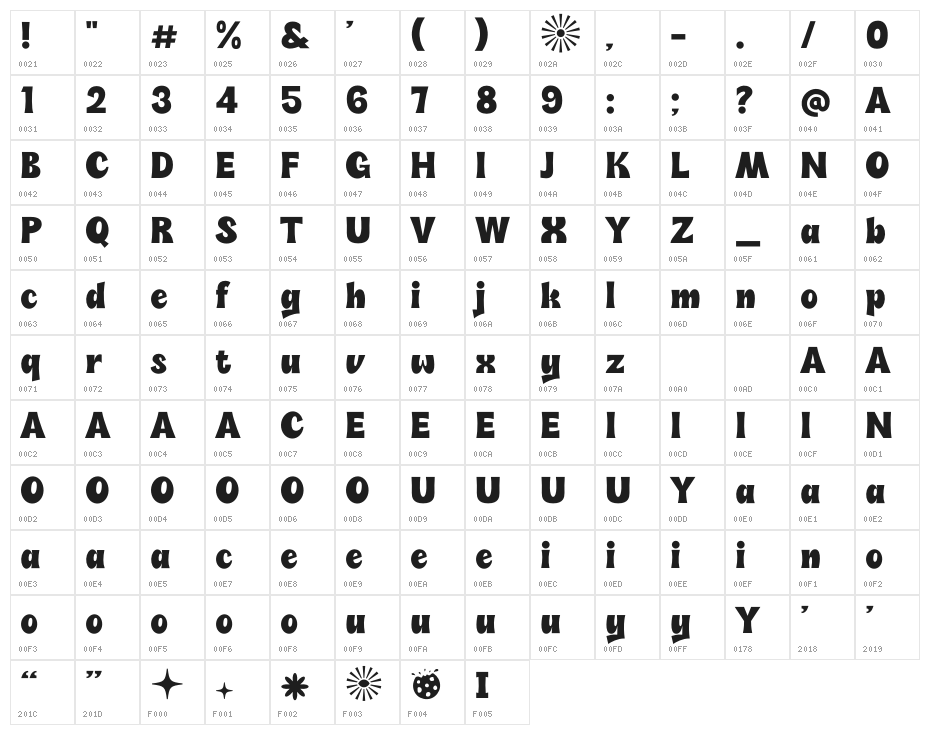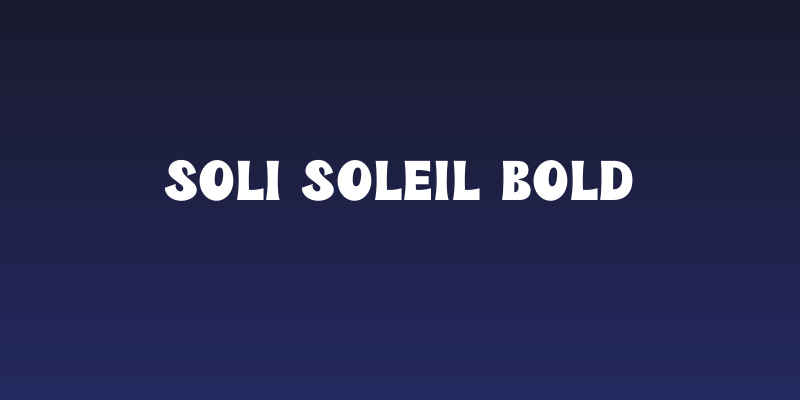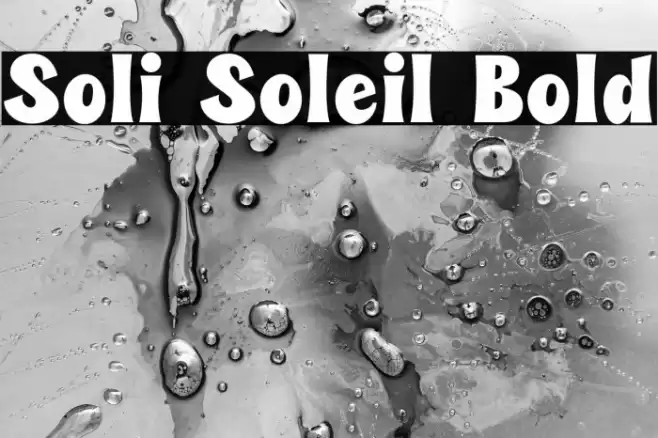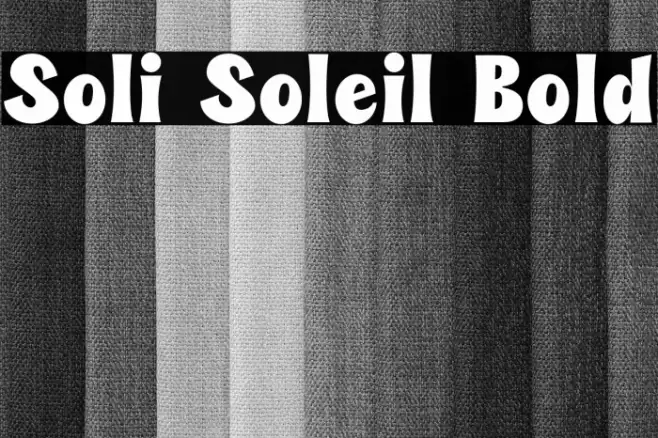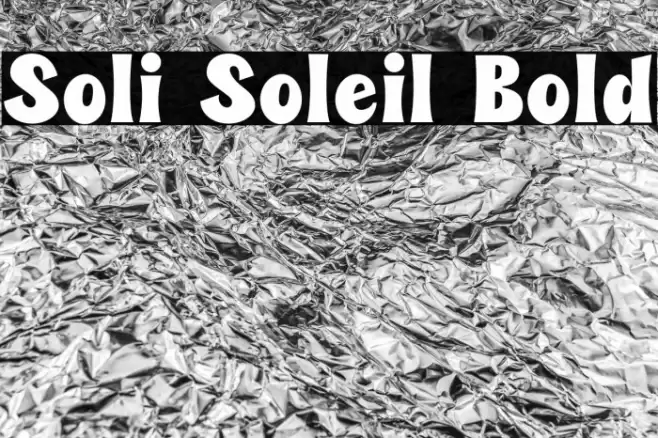
Soli Soleil Bold Font
Soli Soleil Bold Description
This font features a bold and playful design with exaggerated curves and a whimsical flair. The characters are wide and have a dynamic, almost theatrical presence, making them stand out prominently. The uppercase letters are particularly striking, with a strong, confident appearance. The lowercase letters maintain the same playful style, with rounded edges and a slightly informal touch. Numbers and special characters are equally bold, ensuring consistency across all elements. This font's unique style makes it ideal for creative and expressive projects.
| Overall Style | Playful, Whimsical, Bold |
| Proposed Projects | Ideal for posters, children's books, playful branding, and creative advertising. |